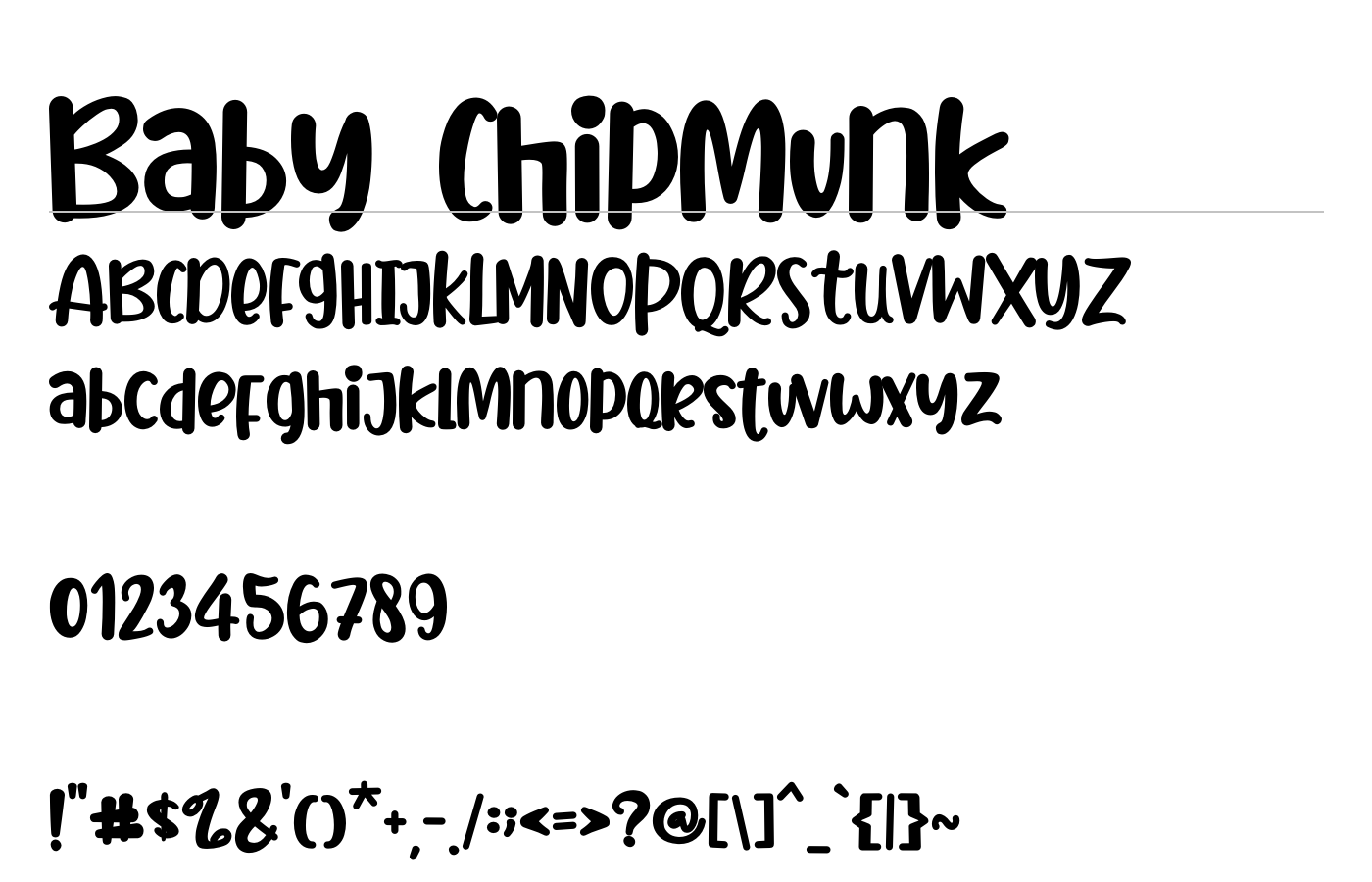
Baby Chipmunk is a playful, casual handwritten font with a bold, rounded style that feels friendly and approachable. Its slightly irregular shapes and lively letterforms make it perfect for designs aimed at children or projects needing a fun, informal touch. This font works well in logos, invitations, and packaging where a warm, cheerful personality is desired.
Baby Chipmunk Font
About Baby Chipmunk Font